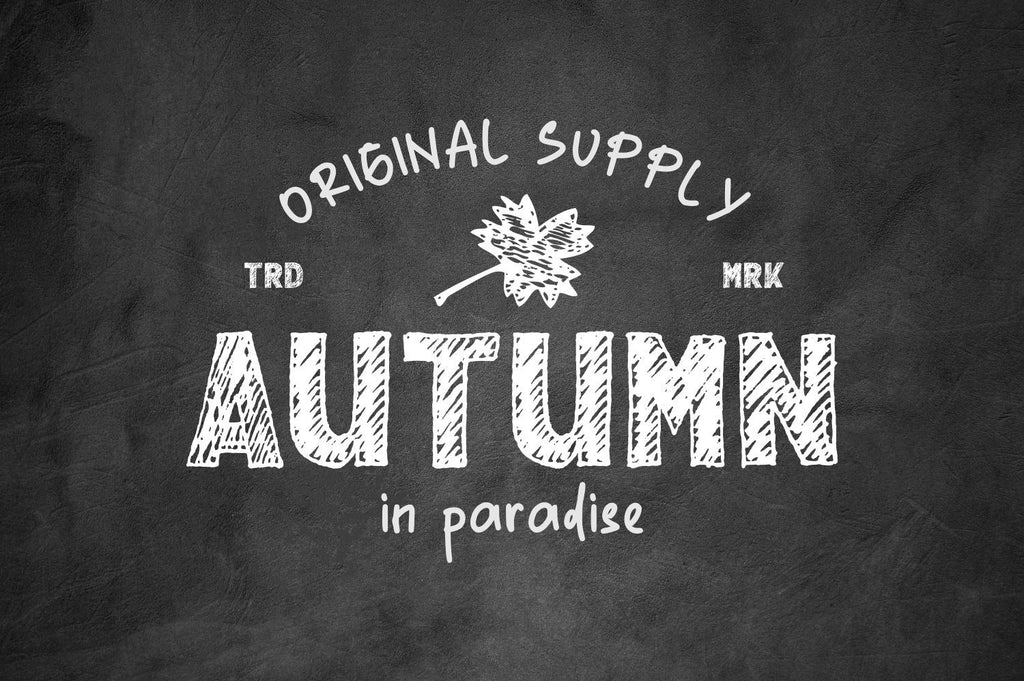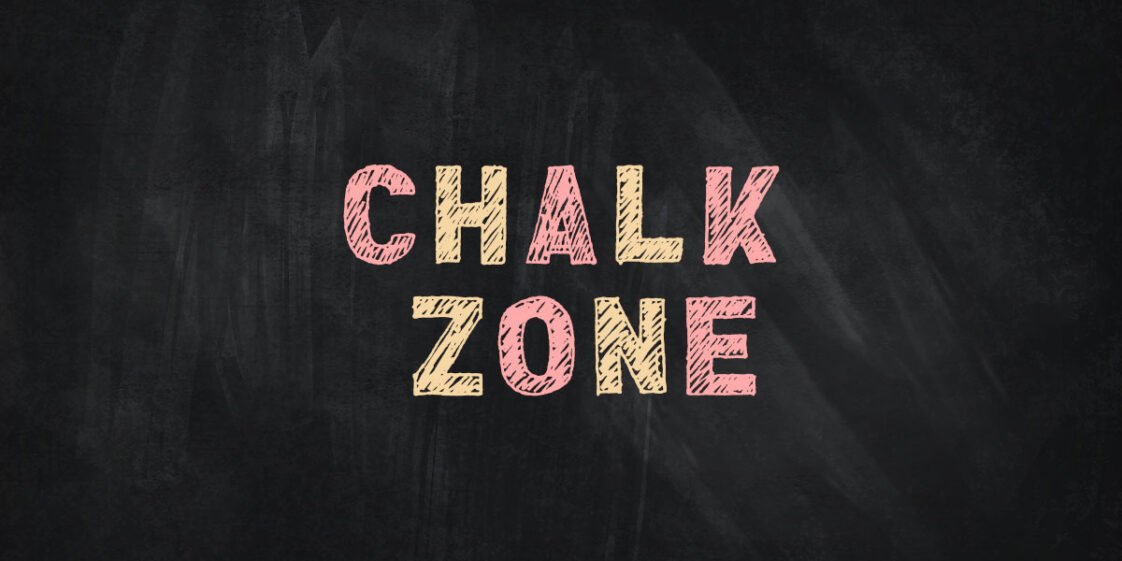
Chalk Zone Font . With a natural touch of chalk and rough will add beauty and originality to a writing in the style of chalk. With a natural touch of chalk and rough will add. This chalk zone font is inspired by the writing of chalk on the blackboard of a school. Chalkzone € by graphix line studio. Designed to give your content a distinctive look, these fonts provide an easy way to add a unique touch to. With its distinctive appearance and vintage feel, you’ll bring depth and character to your creations. Ideal for logo design, branding projects for clothing brands, packaging. Chalkzone font embodies a vibrant and playful display style, reminiscent of colorful chalk writings on a blackboard. Chalkzone font embodies a vibrant and playful display style, reminiscent of colorful chalk writings on a blackboard. Its friendly feel makes this font incredibly versatile, fitting a wide range of contexts. Chalk zone is a bold and colorful display font. This chalk zone font is inspired by the writing of chalk on the blackboard of a school. Add it to your creative ideas and notice how it makes them stand out!
Chalkzone font embodies a vibrant and playful display style, reminiscent of colorful chalk writings on a blackboard. Ideal for logo design, branding projects for clothing brands, packaging. This chalk zone font is inspired by the writing of chalk on the blackboard of a school. With a natural touch of chalk and rough will add. Chalkzone font embodies a vibrant and playful display style, reminiscent of colorful chalk writings on a blackboard. Chalk zone is a bold and colorful display font. Add it to your creative ideas and notice how it makes them stand out! Designed to give your content a distinctive look, these fonts provide an easy way to add a unique touch to. Chalkzone € by graphix line studio. With its distinctive appearance and vintage feel, you’ll bring depth and character to your creations.
Chalk Zone Font With a natural touch of chalk and rough will add beauty and originality to a writing in the style of chalk. Its friendly feel makes this font incredibly versatile, fitting a wide range of contexts. With a natural touch of chalk and rough will add. Add it to your creative ideas and notice how it makes them stand out! This chalk zone font is inspired by the writing of chalk on the blackboard of a school. With its distinctive appearance and vintage feel, you’ll bring depth and character to your creations. Designed to give your content a distinctive look, these fonts provide an easy way to add a unique touch to. Ideal for logo design, branding projects for clothing brands, packaging. With a natural touch of chalk and rough will add beauty and originality to a writing in the style of chalk. Chalkzone font embodies a vibrant and playful display style, reminiscent of colorful chalk writings on a blackboard. Chalk zone is a bold and colorful display font. This chalk zone font is inspired by the writing of chalk on the blackboard of a school. Chalkzone € by graphix line studio. Chalkzone font embodies a vibrant and playful display style, reminiscent of colorful chalk writings on a blackboard.